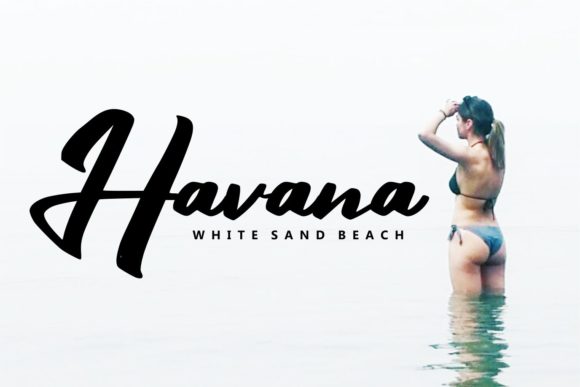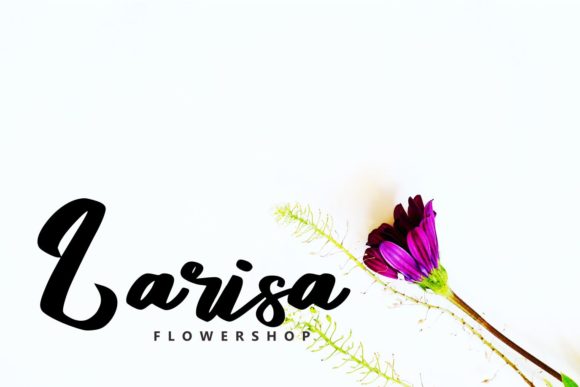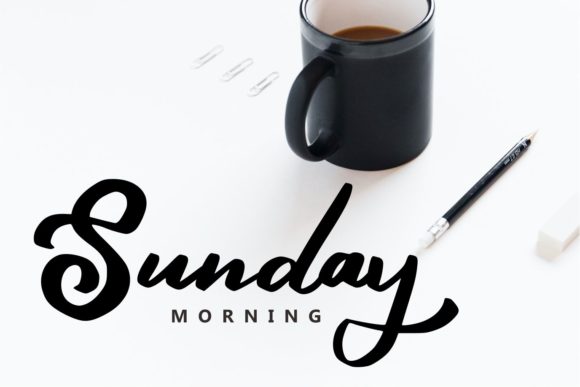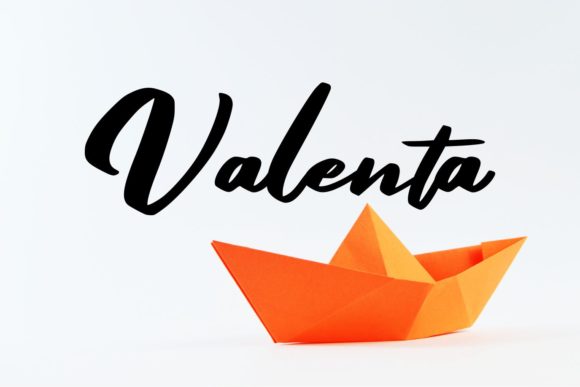
HomeScript FontsQueny Font Script Fonts Queny Font FacebookXPinterestWhatsApp Queny Font Poster 2 Queny Font Poster 3 Queny Font Poster 4 Queny Font Poster 5 About Queny Font Queny is a calligraphy style font that is bold and curvy. Get inspired by its strong character! DOWNLOAD ON CREATIVE FABRICAThis font is sold and delivered by Creative Fabrica. Font Canyon may earn a commission if you buy through this link. People also explored Midline Font Melisty Patria Font Dayana Font Debutant Font Winter Christmas Font Oaklash Font Dogs Font Kenbo Font Gymans Font 294 0 TagsQueny Font Previous articleHelegra FontNext articleVintage Legends Font LEAVE A REPLY Cancel reply Comment: Please enter your comment! Name:* Please enter your name here Email:* You have entered an incorrect email address! Please enter your email address here Website: Save my name, email, and website in this browser for the next time I comment. Personal Use Free Namskow Personal Use Free Read more about this font Kaysan Personal Use Free Read more about this font William Personal Use Free Read more about this font Bruttney Personal Use Free Read more about this font BLOG 5 Fonts That Will Dominate Design Trends in 2026 5 Fonts for 2026 That Will Dominate Design Trends Typography plays a critical role in visual communication, and as we look ahead to 2026, it’s... Using Fonts in Digital Marketing: Tips to Strengthen Your Brand Identity How to Install and Use Fonts on Windows, macOS, and Web Projects Where to Buy American Fonts Online in 2024